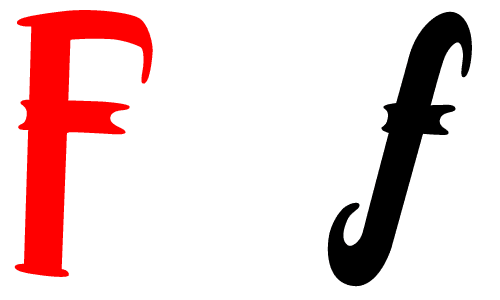
Edward
Fella
My letter F, F as in typographic field: large,
open with amplitude, elbow room: still mostly blank space as in spacey,
spaced out, spread out,
stretched out all the way
back to F, flakey and flightly, freakish and foolish,
frenzied, franctic and feverish, flip, free... to forget it, gone!
No more of it. This letters now just fussed, figured and fastidious,
greatly Antiguated and vastly Zealous: the entire expanse from upper
crusty to lower brow in a nano F! |